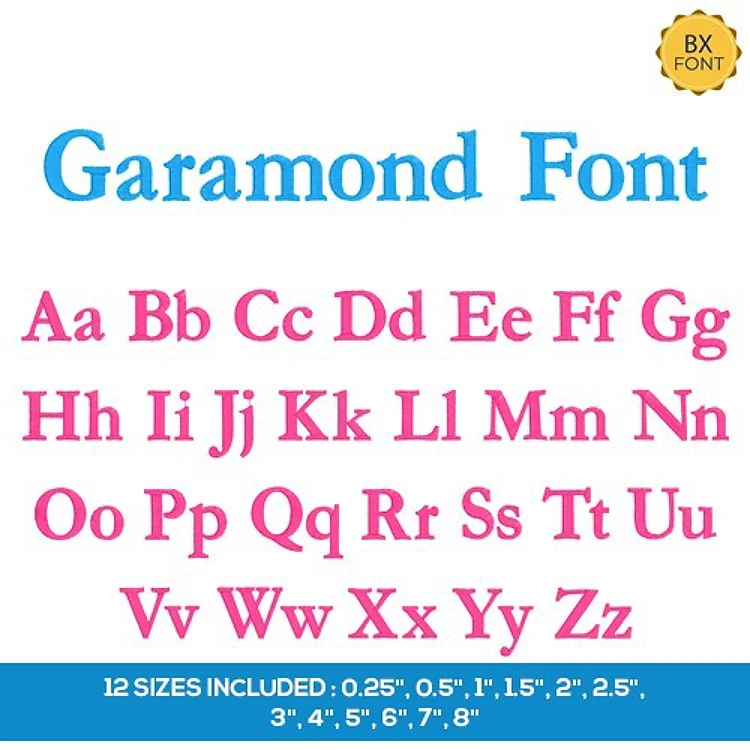
Classic block machine embroidery font suitable for projects on fabric banners and home decor items. The design showcases clear uppercase and lowercase letters in pink, available in Embrilliance format.